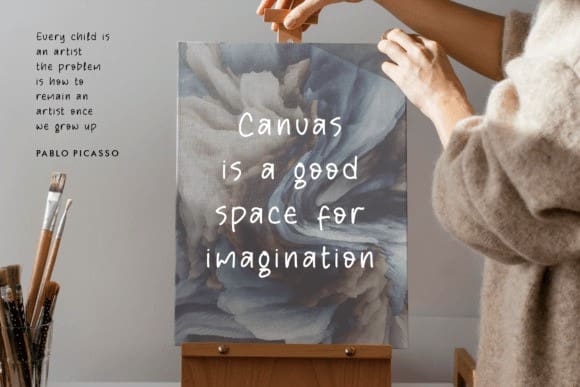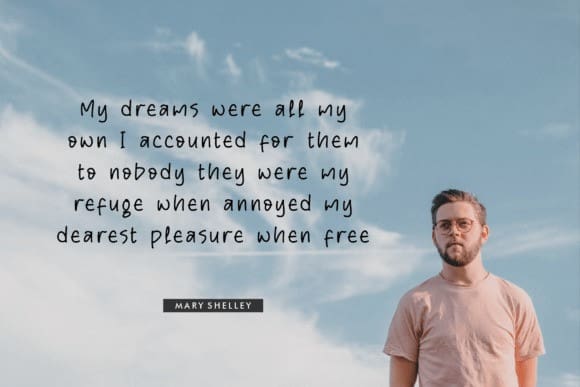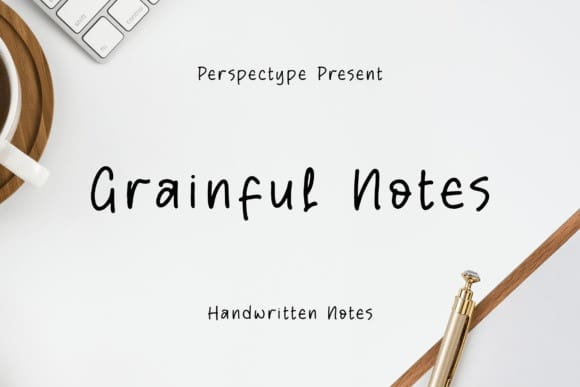
Grainful Notes Font
Grainful Notes Font – Handwritten Notes. This lovely handwritten typeface is suitable for logos, branding projects, homeware designs, product packaging, mugs, quotes, posters, shopping bags, t-shirts, book covers, name cards, invitation cards, greeting cards, labels, photography, watermark, or special events.